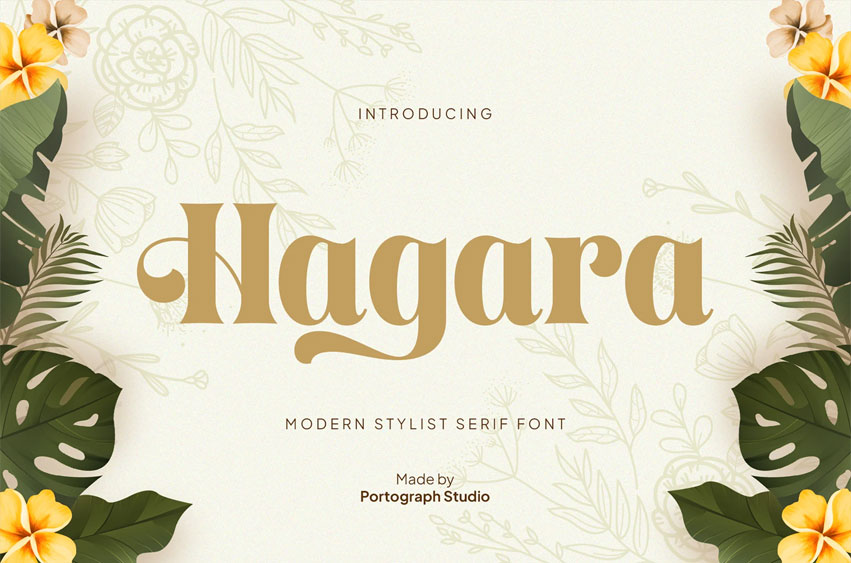
Hagara Font
Hagara Font typeface has a unique and attractive appearance. PTG Hagara looks great when combined with solid character fonts.
For branding projects, logos, wedding designs, social media posts, advertisements, product packaging, product designs, labels, photography, watermarks, invitations, stationery, and anything requiring handwritten taste, PTG Hagara is perfect.